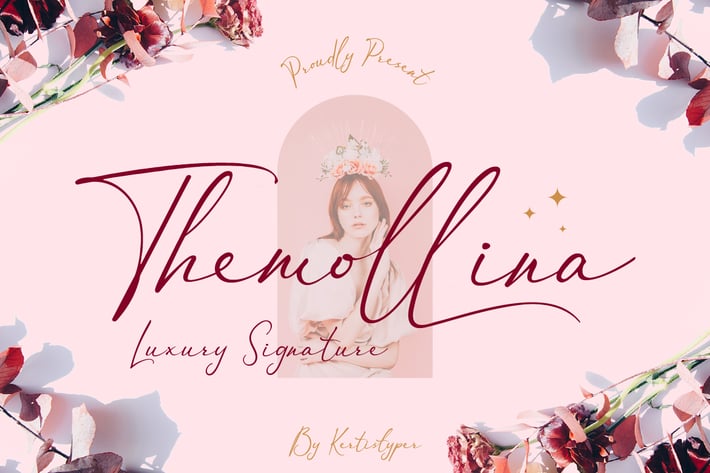
Themollina Font
Themollina is a handwritten signature font with a calligraphy flair, ideal for creating handwritten-style projects. This font is good for logo design, Social media, Movie Titles, Books Titles, short text even long text letters, and good for your secondary text font with sans or serif.
Standard Uppercase & Lowercase
Multilingual : ä ö ü Ä Ö Ü ß ¿ ¡
Alternate & Ligature